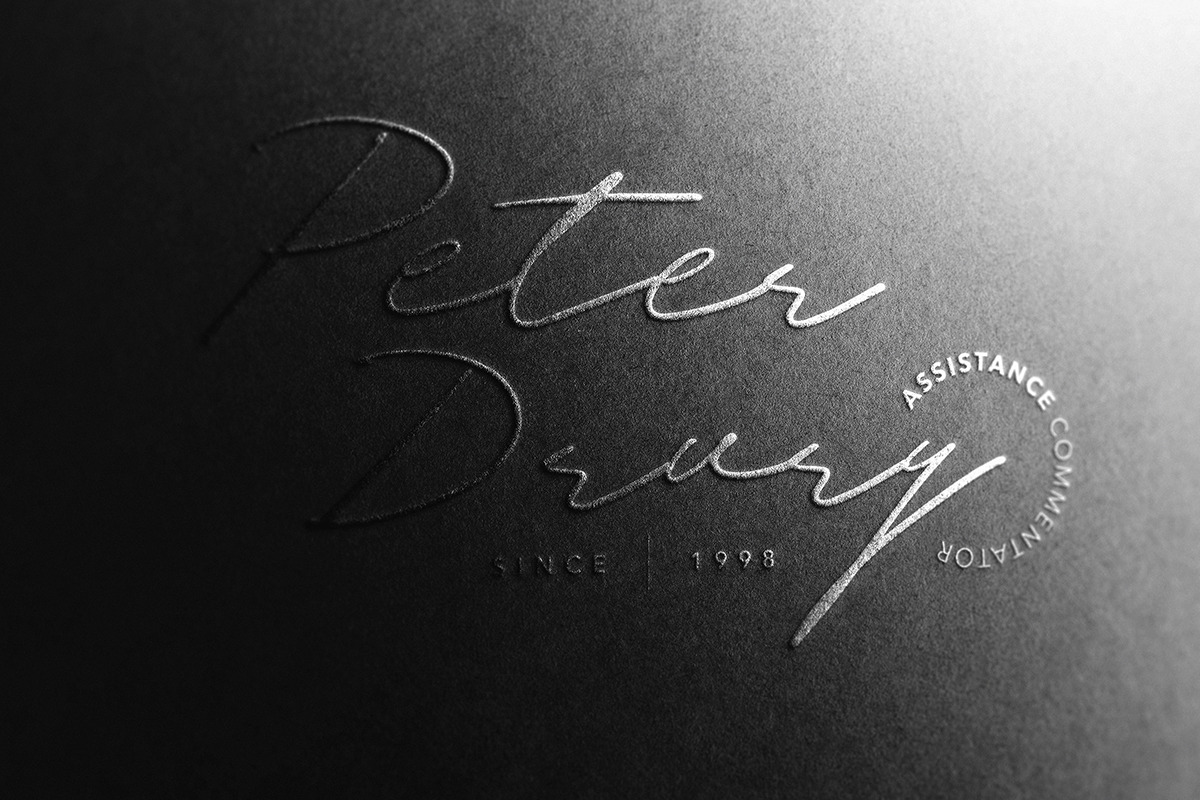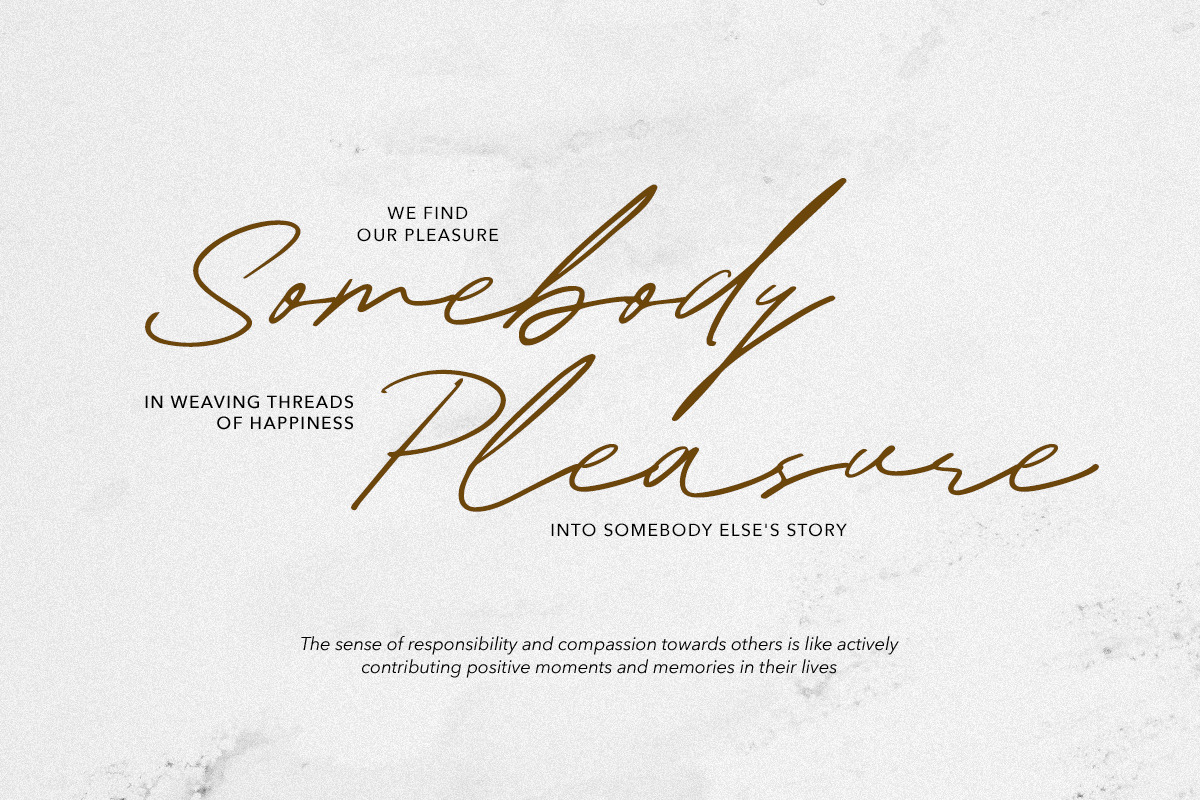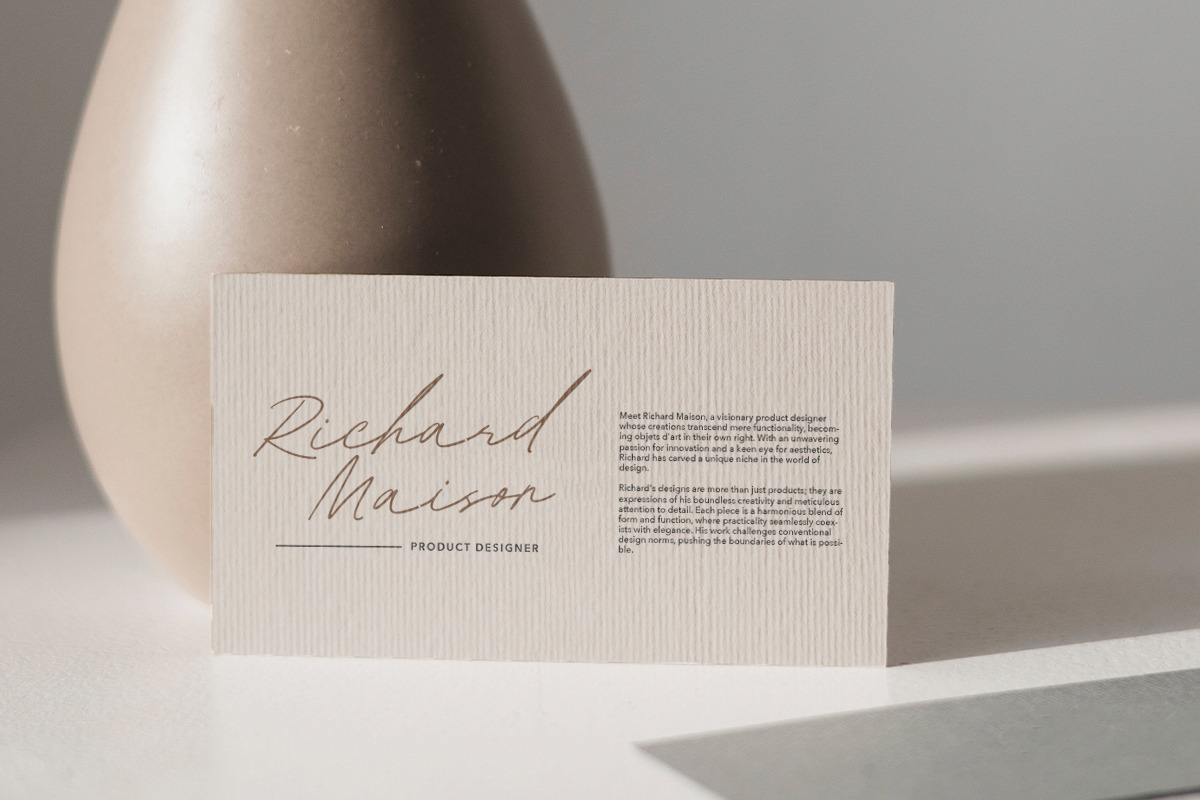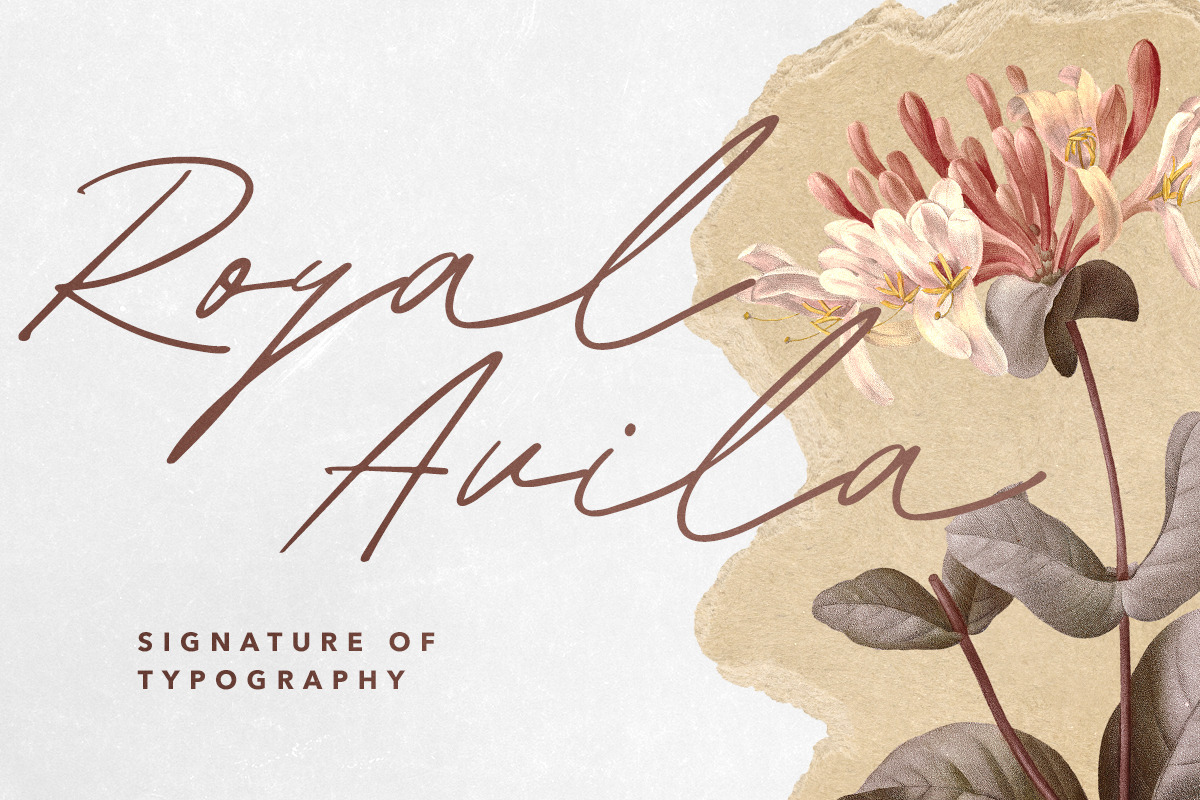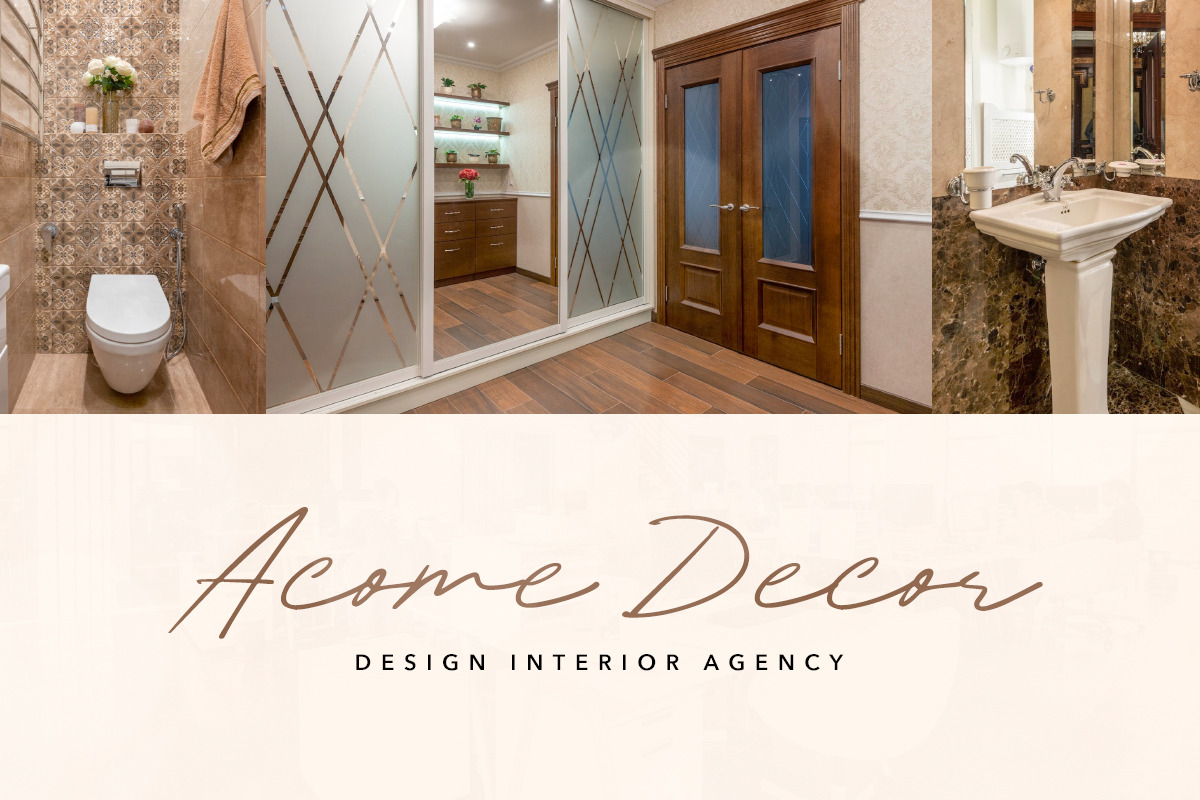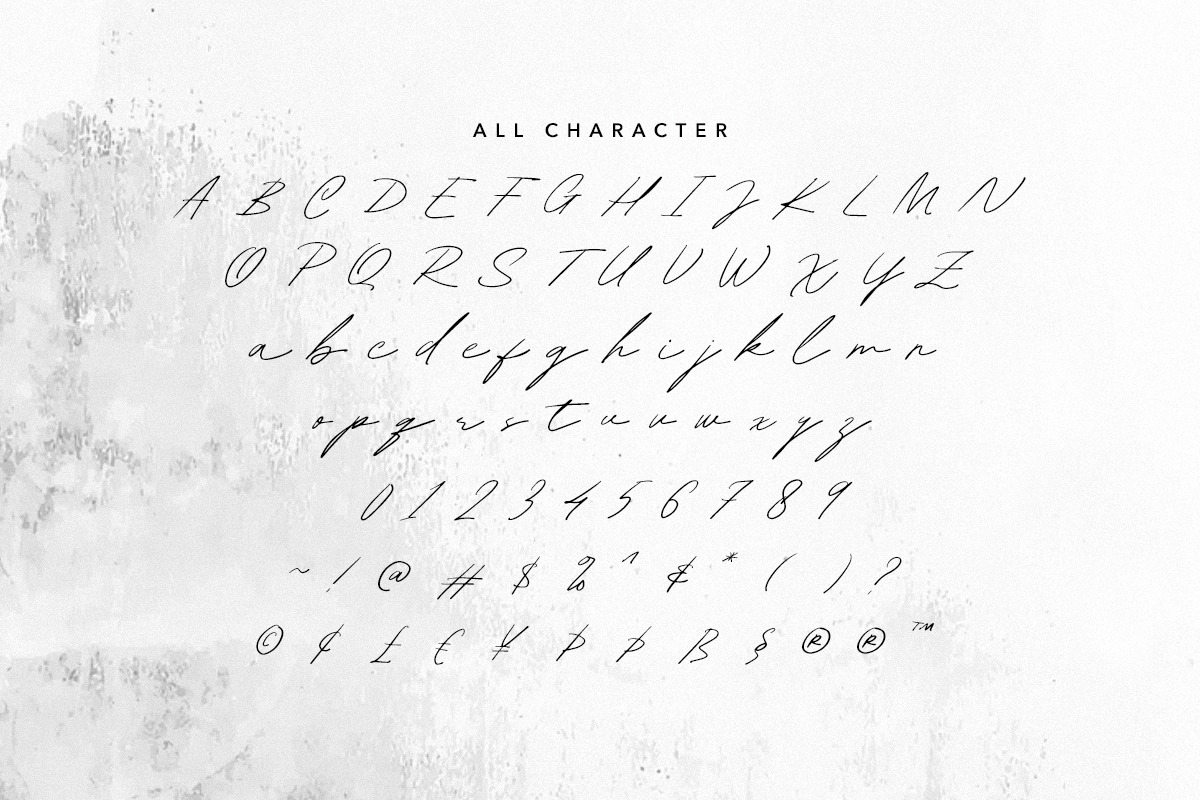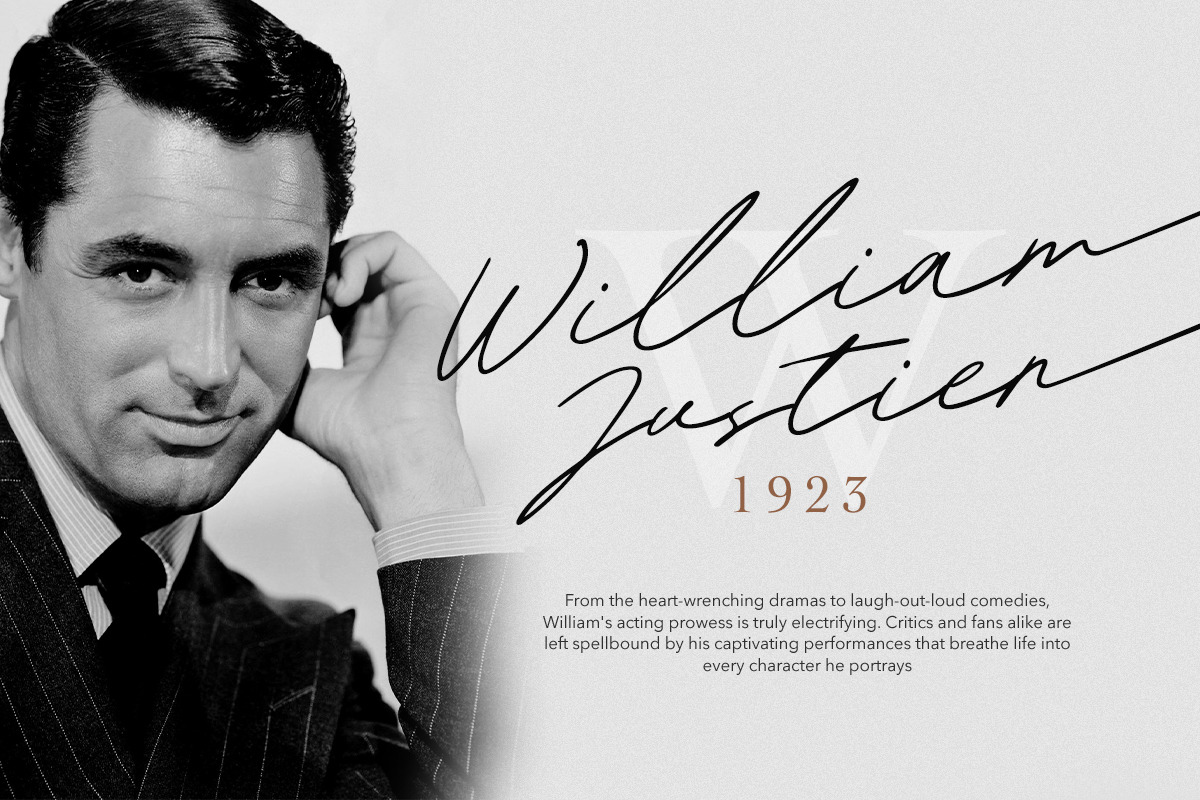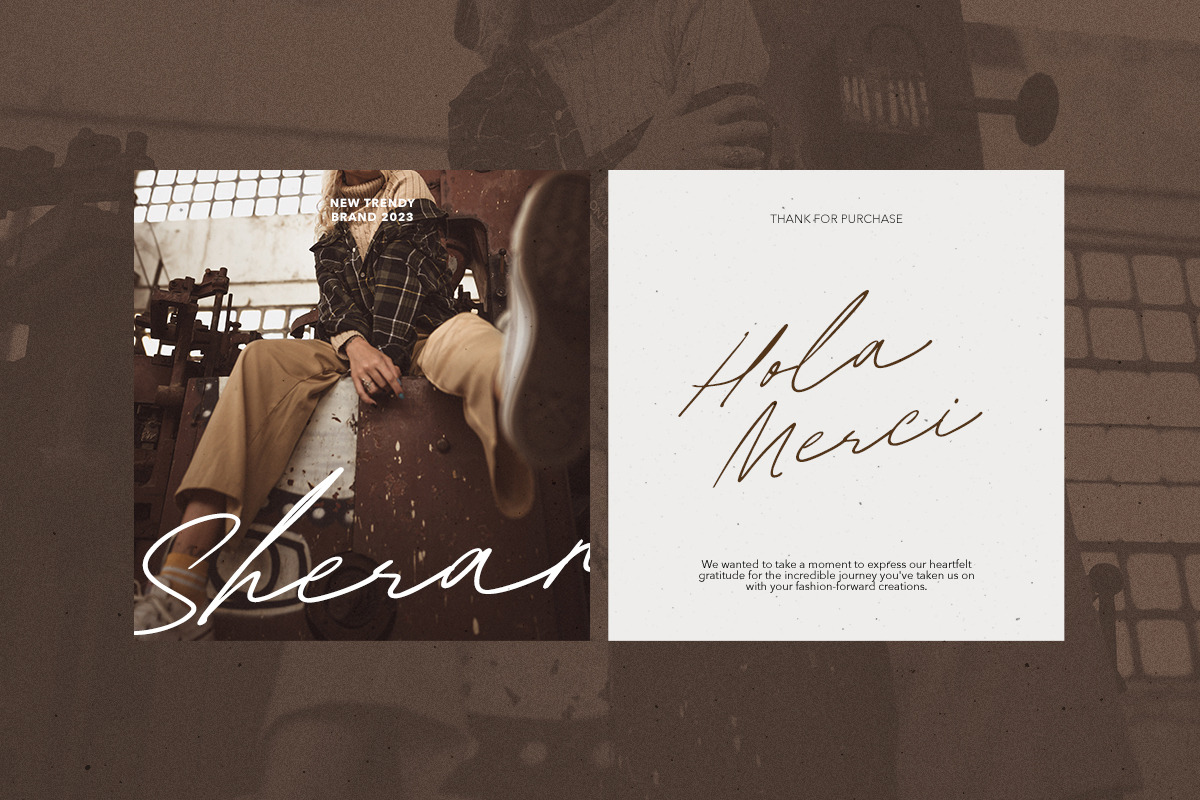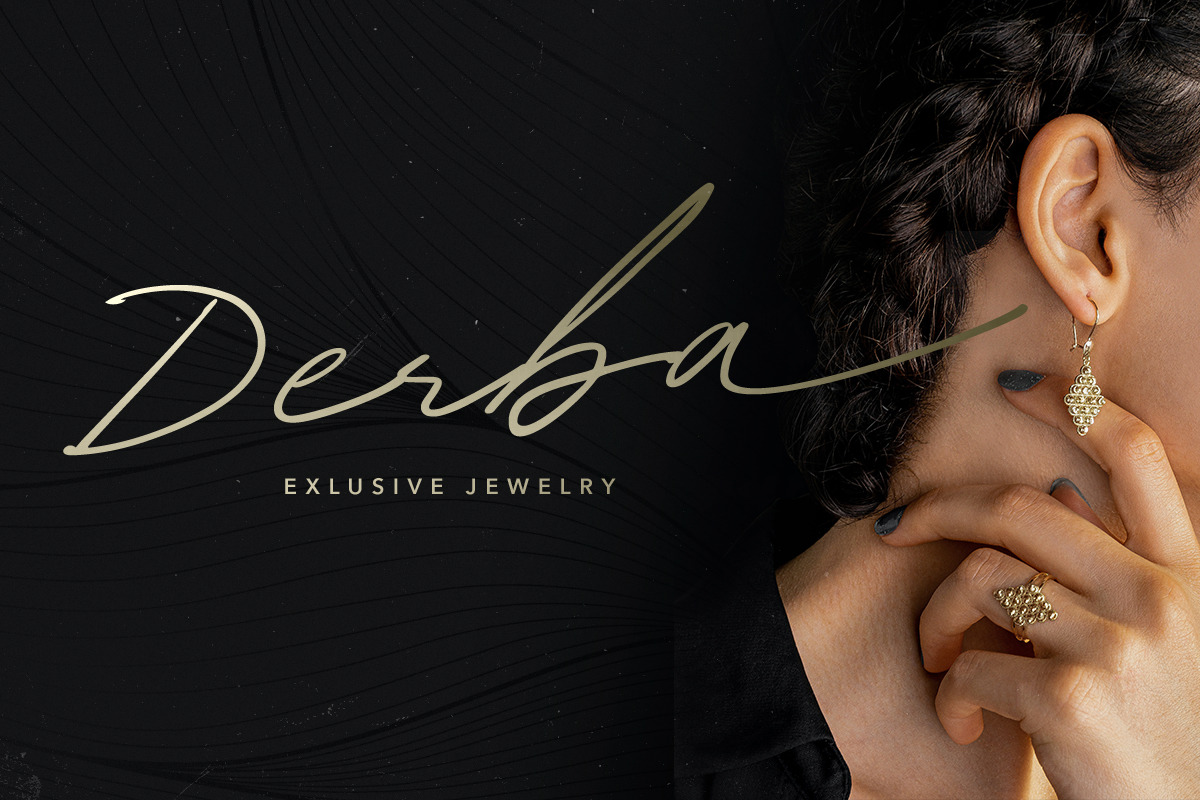
Diana William - Elegant Signature
Diana William embodies an aesthetic handwritten script style, exuding an authentic charm perfect for your signature. Featuring end and terminal alternates, this font enhances the beauty of your project. Its natural appearance makes it versatile for various purposes, including digital signatures, logos, branding, quotes, and as a complementary font to your sans or serif font. Moreover, this font supports multiple languages, adding to its versatility.